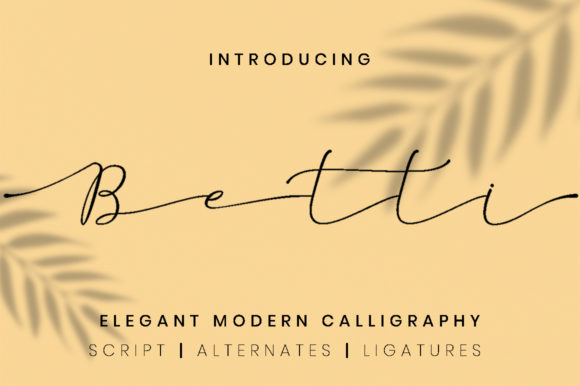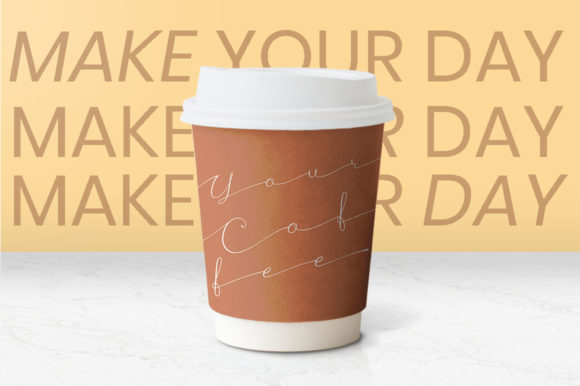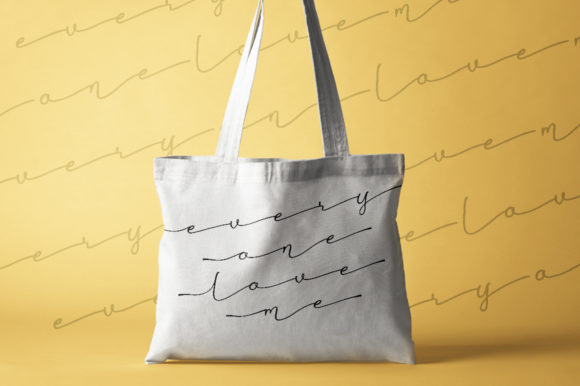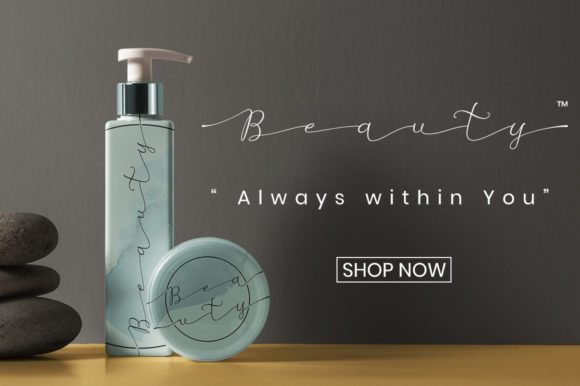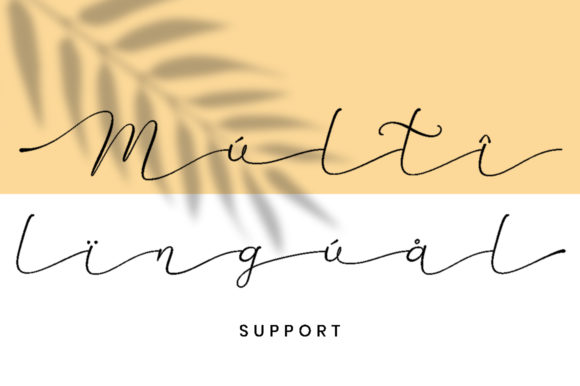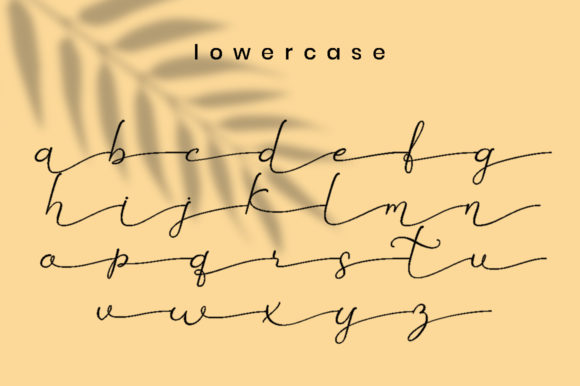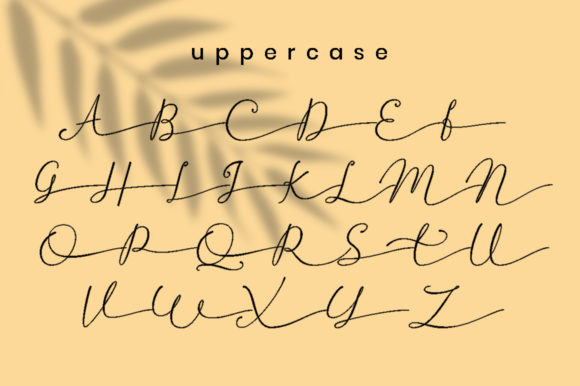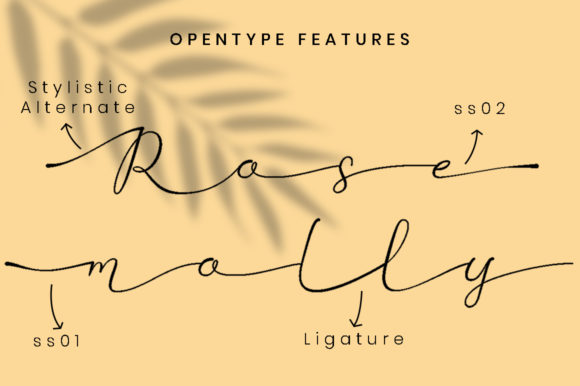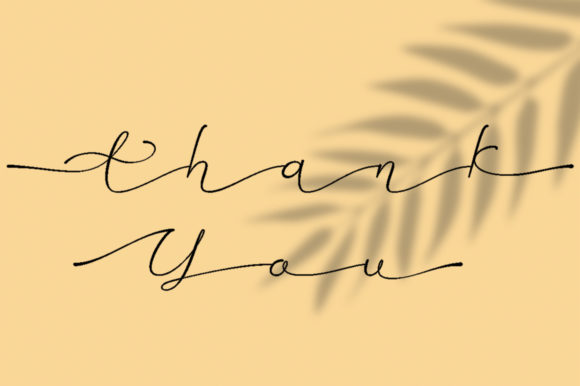
HomeScript FontsBetti Script Font Script Fonts Betti Script Font FacebookXPinterestWhatsApp Betti Script Font Poster 2 Betti Script Font Poster 3 Betti Script Font Poster 4 Betti Script Font Poster 5 Betti Script Font Poster 6 Betti Script Font Poster 7 Betti Script Font Poster 8 Betti Script Font Poster 9 About Betti Script Font Betti is a modern and cool handwritten font with beautiful alternates. Get inspired by its contemporary charm. DOWNLOAD NOW People also explored Qogee Font Avone Font Asyiela Font Bright Font Shalsa Font Ability Font Yudha Prasetya Font Olan Olin Font Inkwell Font 324 0 TagsBetti Script Font Previous articleScarlette FontNext articleMaulidar Font LEAVE A REPLY Cancel reply Comment: Please enter your comment! Name:* Please enter your name here Email:* You have entered an incorrect email address! Please enter your email address here Website: Save my name, email, and website in this browser for the next time I comment. Personal Use Free Kanza Personal Use Free Read more about this font Hello, How Are You? Personal Use Free Read more about this font Gaboed Personal Use Free Read more about this font Adelia Font Personal Use Free Read more about this font BLOG Free vs Paid Fonts: Why Investing in Premium Fonts Is Worth It Free vs Paid Fonts: Why Premium Fonts Are Worth It in 2025 The debate of free vs paid fonts continues in the design world. While... Using Fonts in Digital Marketing: Tips to Strengthen Your Brand Identity Transform Your Website: Elevate Your Typography with 7 Best Web Font Generators Top 10 Handwritten Fonts That Elevate Your Designs